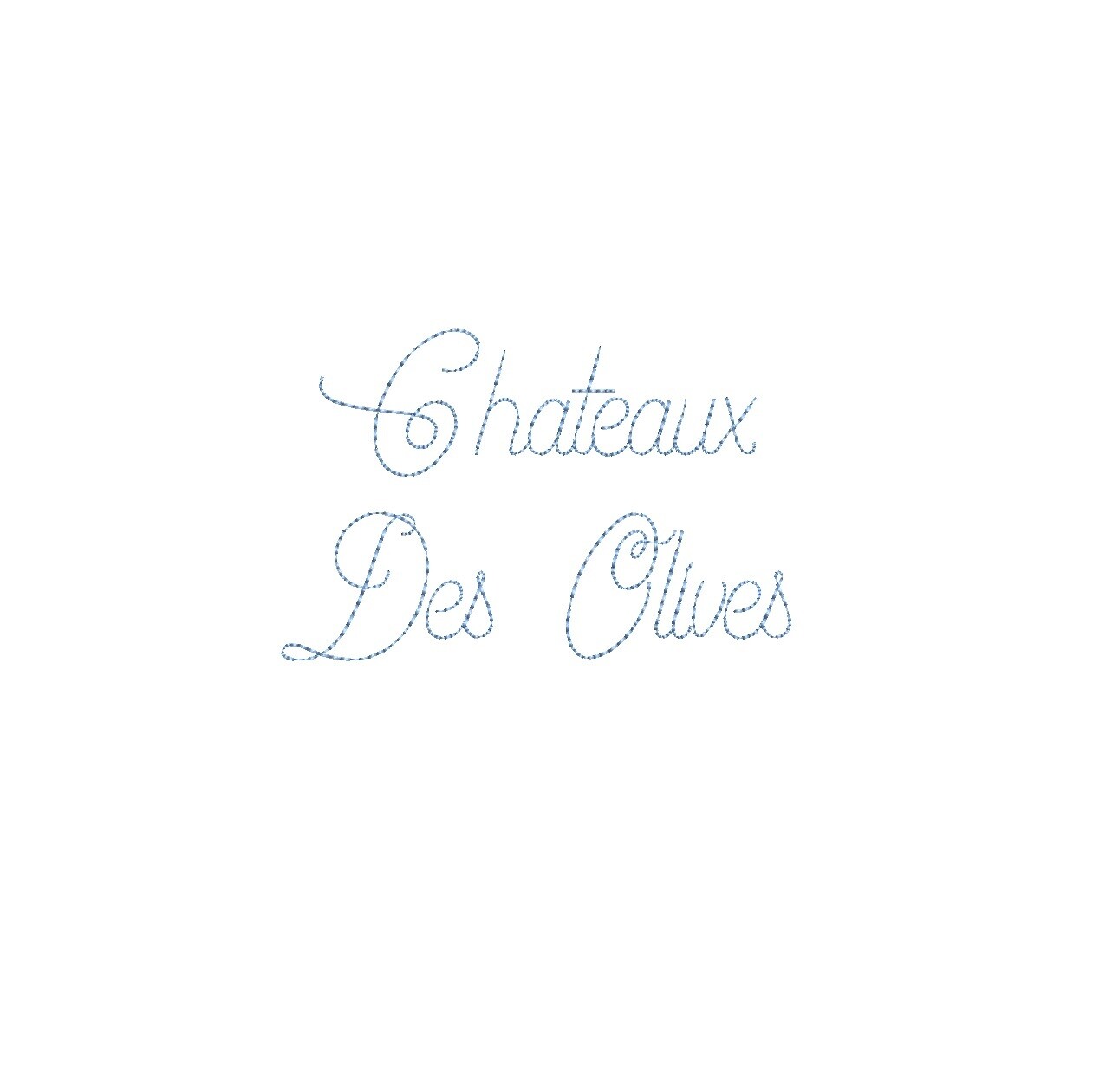
Introducing the Chateaux Des Olives Bean Stitch ESA font - your ultimate digitizing solution compatible with Wilcom Studio e4.5.6 and Hatch 3 versions and up. Embrace the richness of this font, inspired by the charm of olive groves, perfect for sophisticated embroidery projects. Its elegant bean stitch style adds a touch of luxury to apparel, accessories, and home decor. With seamless curves and impeccable lines, the Chateaux Des Olives ESA font guarantees flawless embroidery results. Impress clients and showcase your creativity effortlessly with this user-friendly font, seamlessly integrating with your preferred software. Elevate your designs and infuse them with Mediterranean allure - get it now!